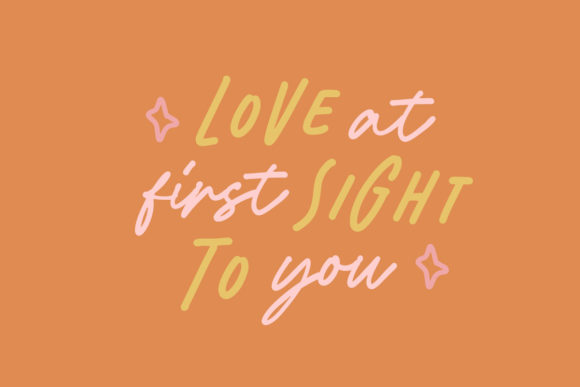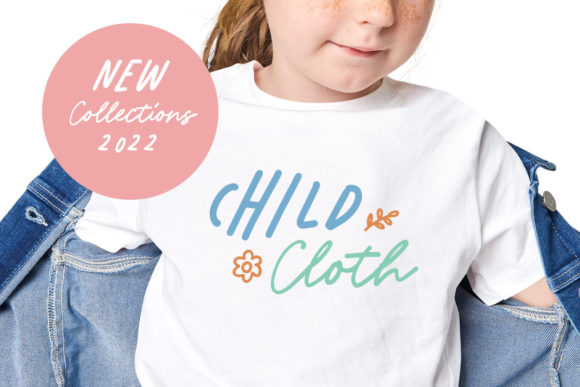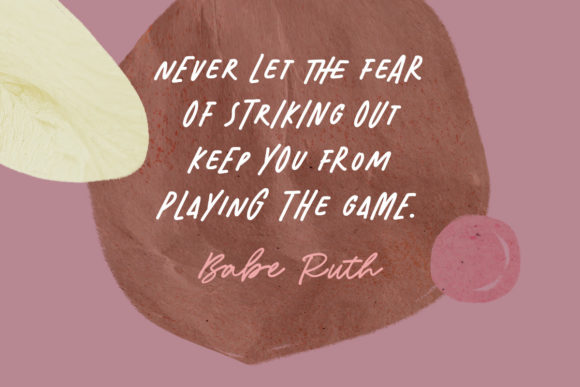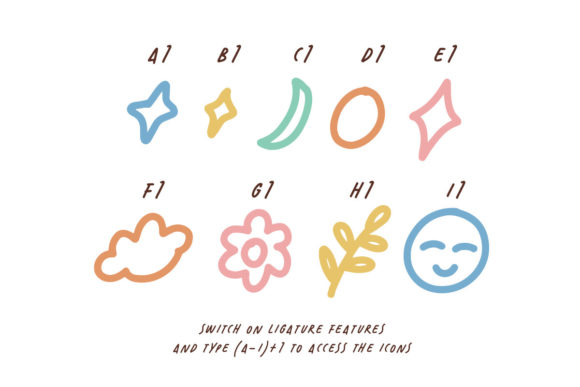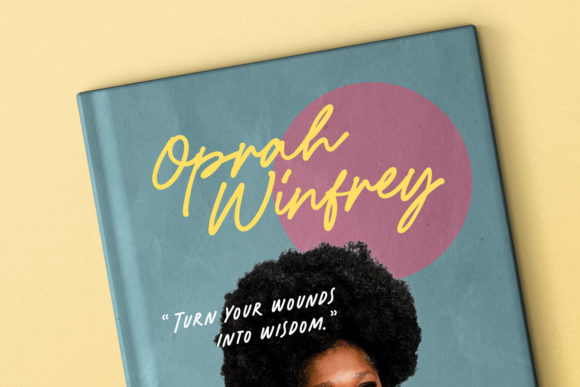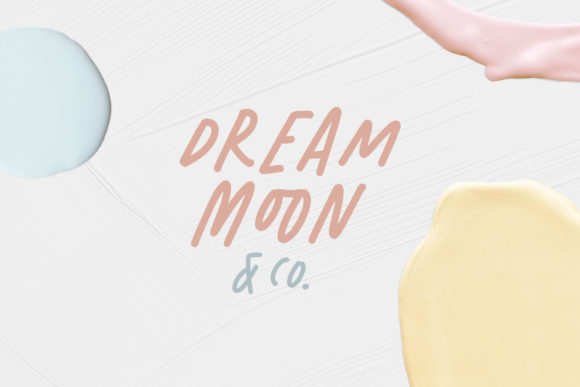
Hello Sister Font – Free Download
Introduction to Hello Sister Font
Hello Sister is a lovely duo font (sans serif and script) with a playful look and a nice, feminine feel.
Combined, these fonts are the perfect match for womenโs magazines, wedding invitations, personal branding, skincare brans, and so much more .
Key Features of Hello Sister Font
Why Choose Hello Sister Font?
Hello Sister Font offers exceptional quality and versatility, making it a valuable addition to your design toolkit. Whether you’re creating for personal projects or commercial use, Hello Sister Font delivers professional results.